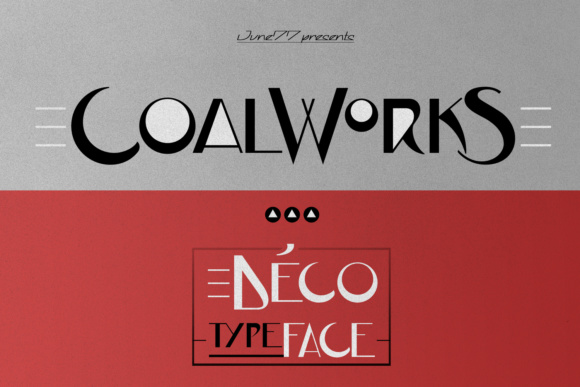
Journey through time with JVNE CoalWorks Font, a display font family that captures the essence of a classic 1982's 12 inches single titling font. Created by the esteemed Jvne77, this font is a meticulously crafted false-face recreation, paying homage to a personal favorite.
Unleash your creativity with a set-list that's nothing short of amazing, seamlessly marrying with another beloved typeface from Ray Larabie of Typodermic. This font family is a treasure trove for afficionados of S&tB, a true testament to the enduring legacy of classic typography.
Immerse yourself in the rich tapestry of languages, with support for Central & Western Latin, adorned with an array of alternates, and classic, stylistic, and contextual ligatures that elevate your designs to new heights. Each character is a testament to the artistry of Jvne77, inviting you to explore the depths of your imagination.
Discover a universe of possibilities with JVNE CoalWorks Font, a font family meticulously designed to evoke nostalgia while embracing modernity. Its timeless aesthetic adds a touch of vintage charm to your projects, while its versatility ensures seamless integration with contemporary designs.
Whether you're creating captivating posters, eye-catching logos, or stunning social media graphics, JVNE CoalWorks Font is your steadfast companion, guiding you towards design excellence. Embrace the power of the past and the promise of the future, all in one remarkable font family.
With JVNE CoalWorks Font, your designs will resonate with a timeless allure, capturing the attention of your audience and leaving a lasting impression. Dive into the depths of creativity and experience the transformative power of this extraordinary font family.